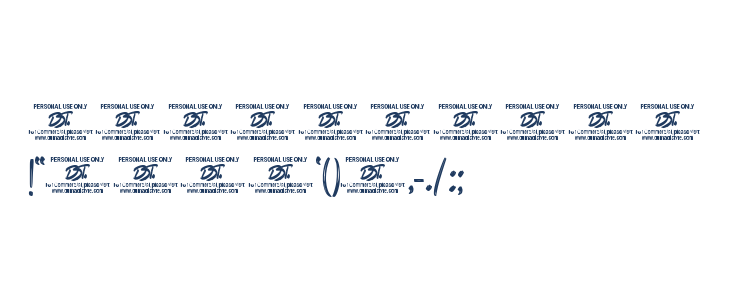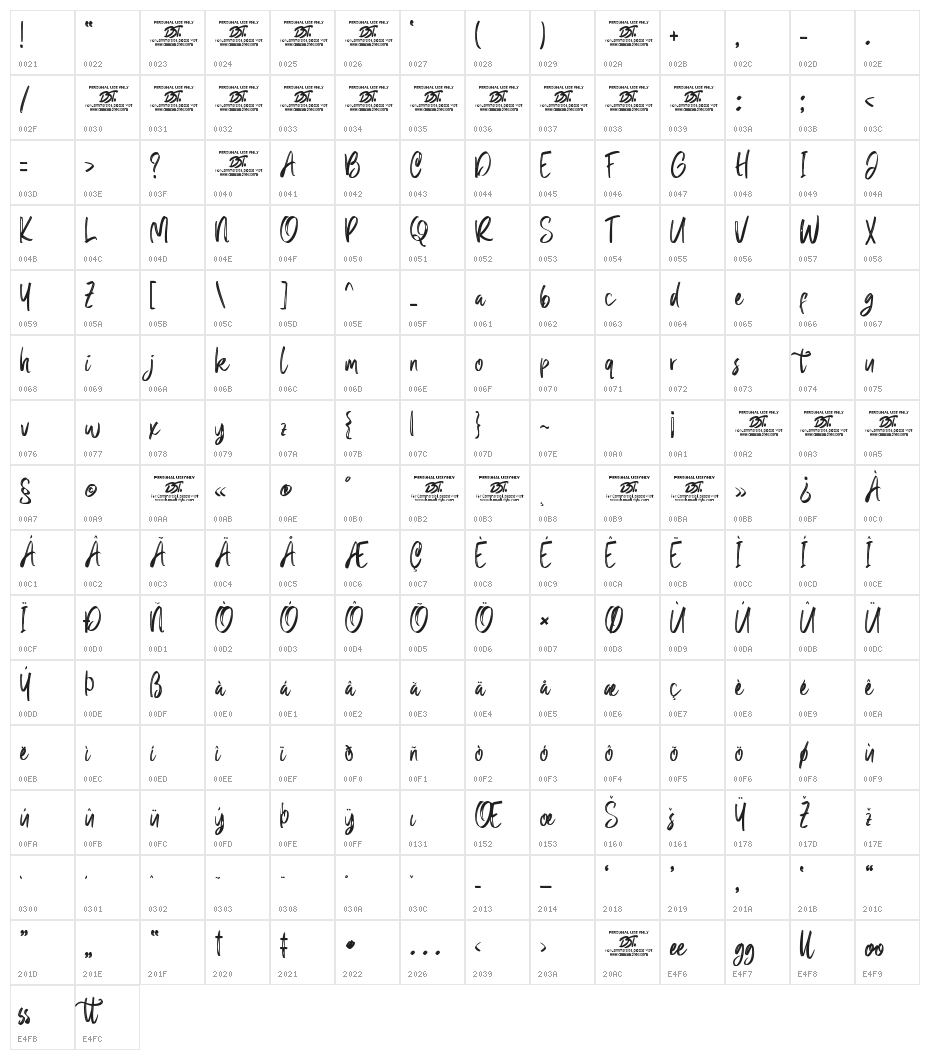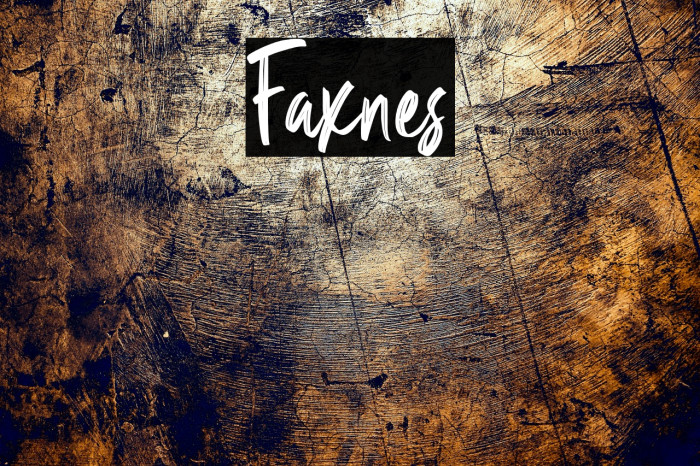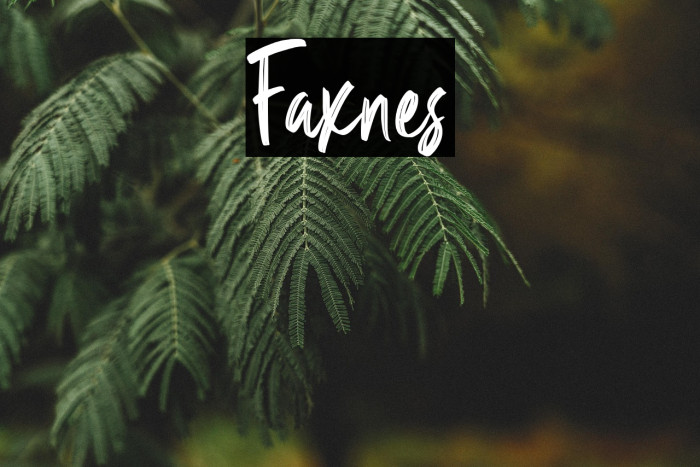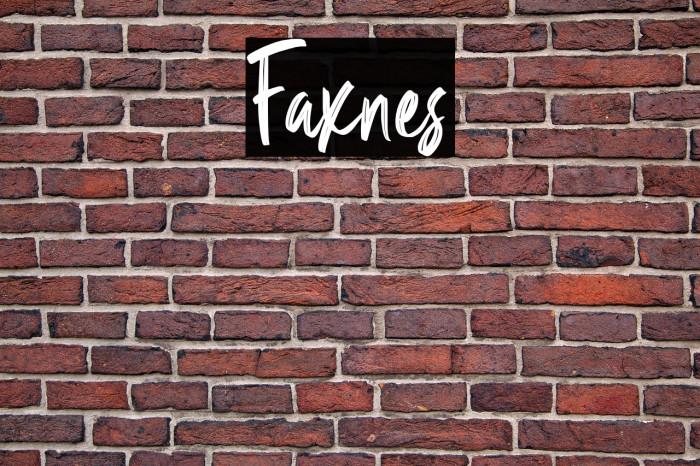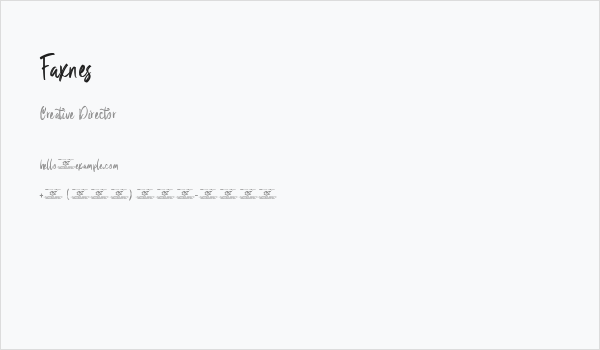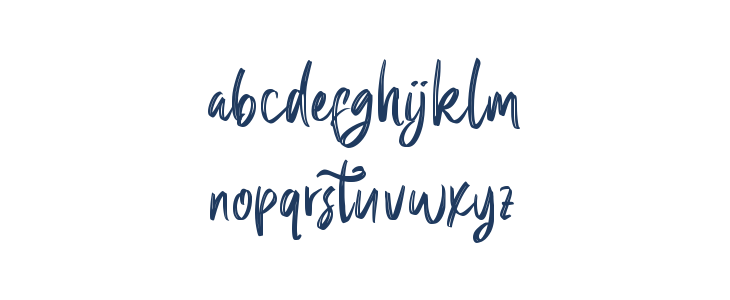
Faxnes Font
Faxnes Description
This font features a bold and expressive handwritten style, characterized by its flowing and dynamic letterforms. The uppercase letters are tall and slightly slanted, giving a sense of movement and energy. The lowercase letters maintain a consistent style with a playful touch, featuring unique loops and curves. The numbers and special characters are designed to match the overall aesthetic, making them suitable for creative and artistic projects. The font's brush-like strokes add a personal and informal feel, making it ideal for designs that require a touch of personality and flair.
| Use Case | Logos, Headlines, Posters |
| Proposed Projects | Ideal for greeting cards, invitations, branding, social media graphics, and creative posters. |